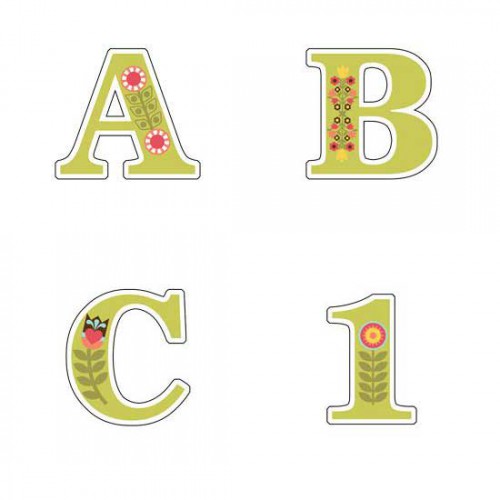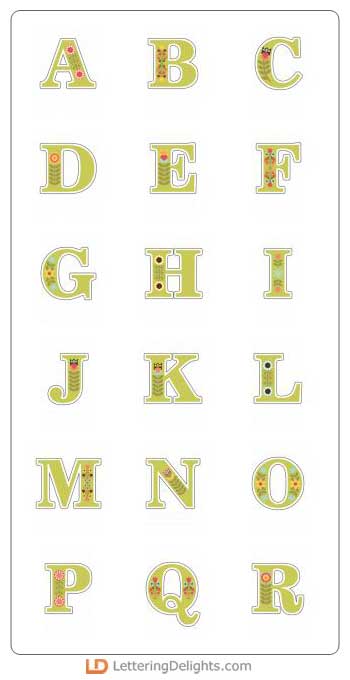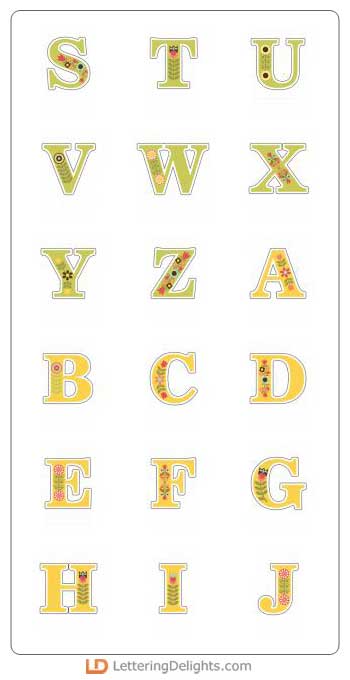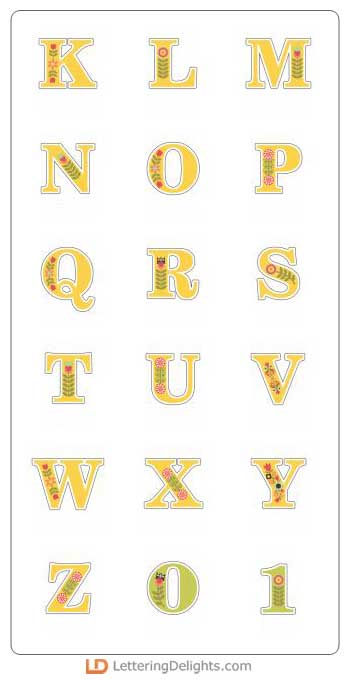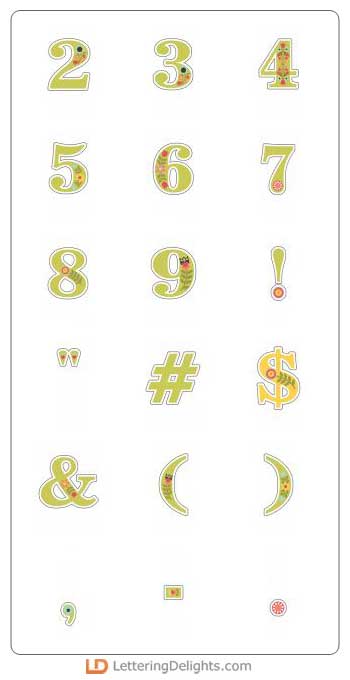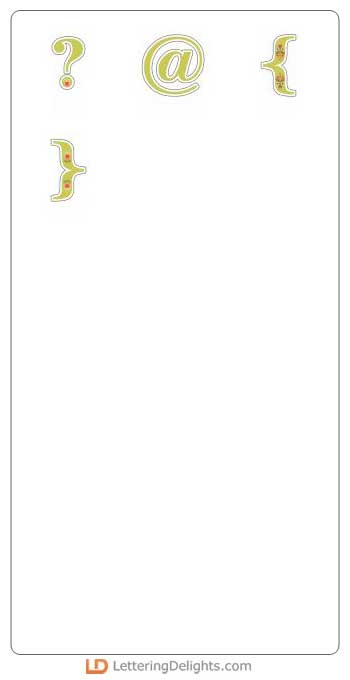
Spring Is Bliss - AL
What a beautiful alphabet! Lovely tones of green grass or sunny yellow combined with Scandinavian floral patterns and classically shaped letters and you've got the perfect alphabet to pair with the Spring is Bliss Graphics and SVGs.